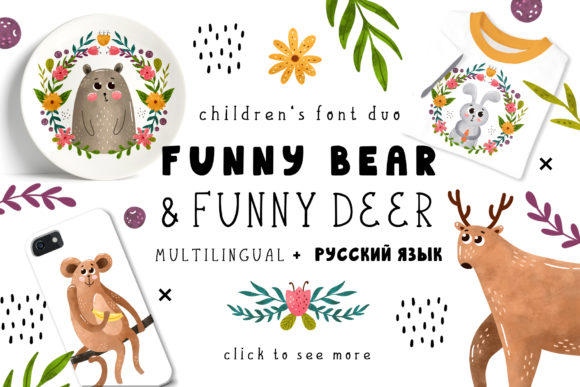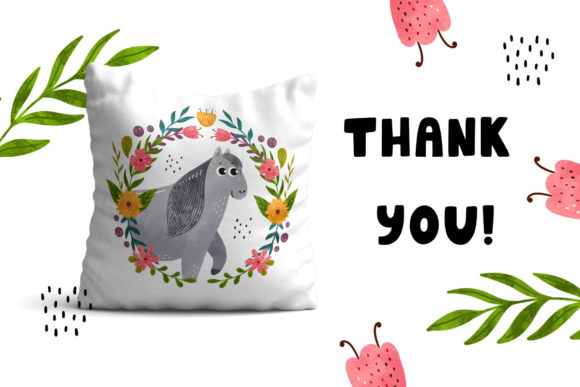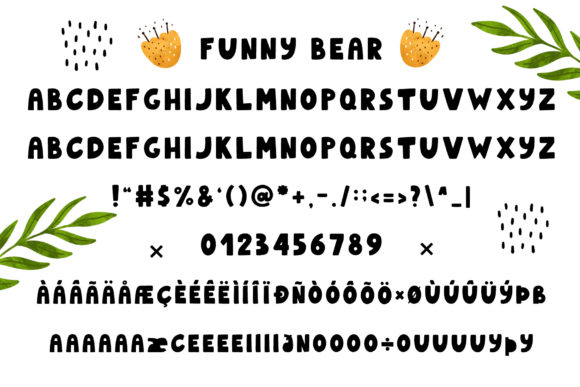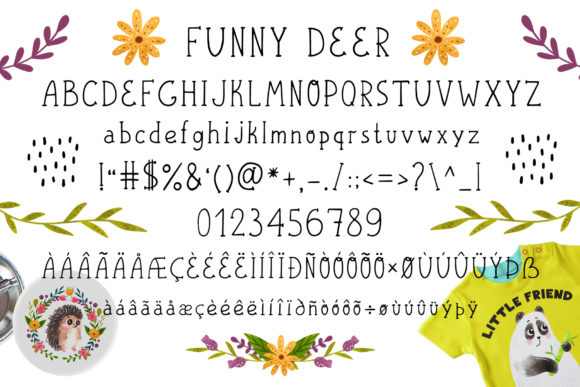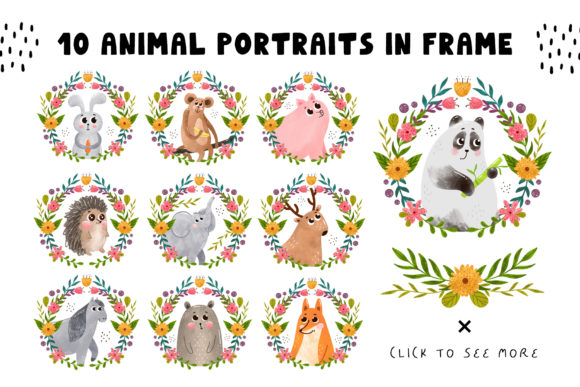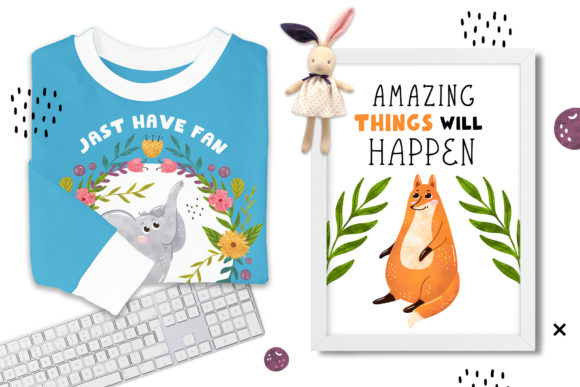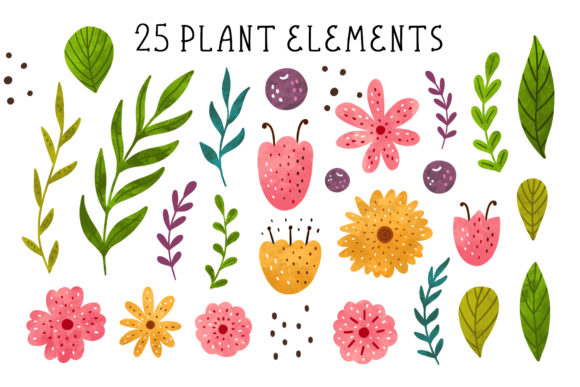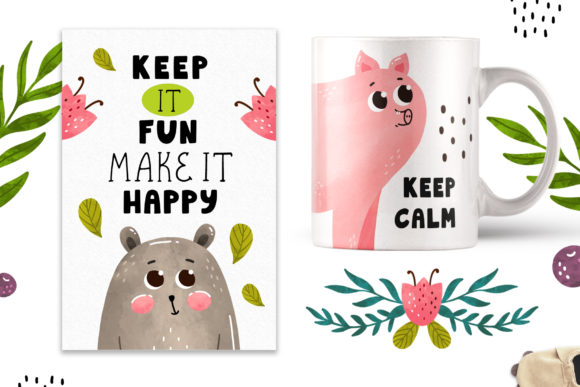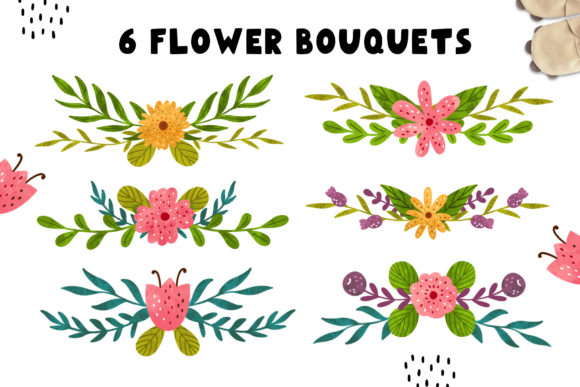
Funnybear & Funnydeer Font
About Funnybear & Funnydeer Font
Funnybear and Funnydeer is a cute font duo made by hand with extra love. They are perfectly suited for children’s themed design projects.